Choosing from vintage aesthetic fonts starts with the job your typography must do. Consider the words, their final size, and the mood of the project. The options below are organized to help you compare useful directions before testing candidates in your own layout.
How to evaluate the options
Set the real headline, name, or label in each candidate. Check legibility at the final size, compare the capitals and repeated letters, and leave enough room for decorative details. Use a quieter companion font for long descriptions and other supporting text.
At a glance
| Font | Good starting point |
|---|---|
| Monkerti Font | logos, branding |
| Bardens Font | logos, branding |
| Balistic Font | logos, branding |
| Bentley Font | posters, display text |
| Houston Font | logos, headlines |
| Fomtage Script Font | posters, headlines |
| Donatello Font | posters, headlines |
| Bayland Font | posters, display text |
| Wagner Font | logos, branding |
| Boldy Skyline Font | branding, logos |
| Retro Sign Font | branding, headlines |
| Groovy Vintage Font | display text, posters |
| Sweet Sixties Font | posters, packaging |
| Stay Lucky Font | product labels, children’s designs |
| City Mango Font | headlines, display text |
| Wildhorn Slab Font | signage, posters |
| Molcer Font | branding, editorial designs |
| Regnas Font | logos, posters |
| Lush Letter Font | branding, headlines |
Font picks
Monkerti Font for logos
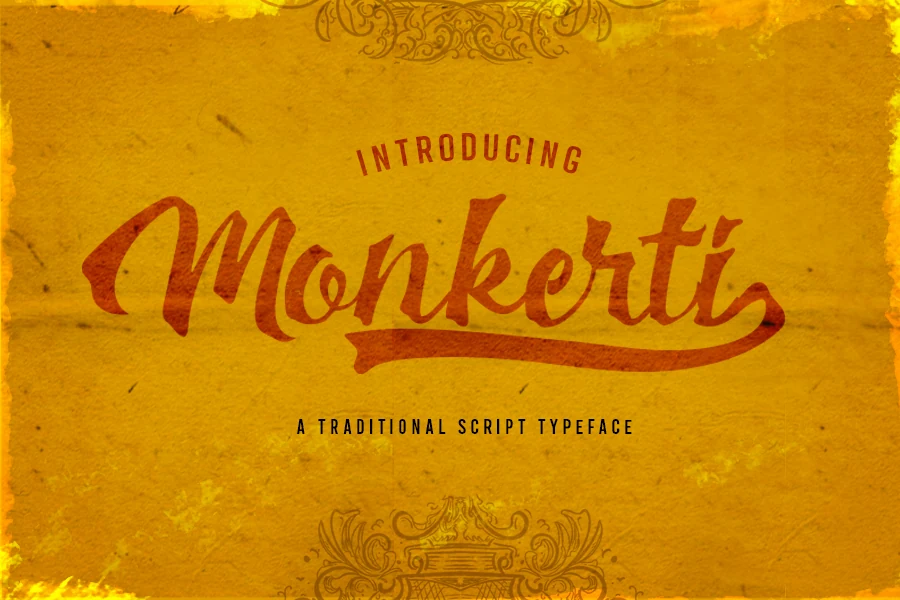
Monkerti Font is worth testing for logos, branding, and headlines. Look for strong contrast between thick and thin strokes and decorative swashes when comparing it with other options. Check the thinnest strokes at the final display size.
Bardens Font for logos
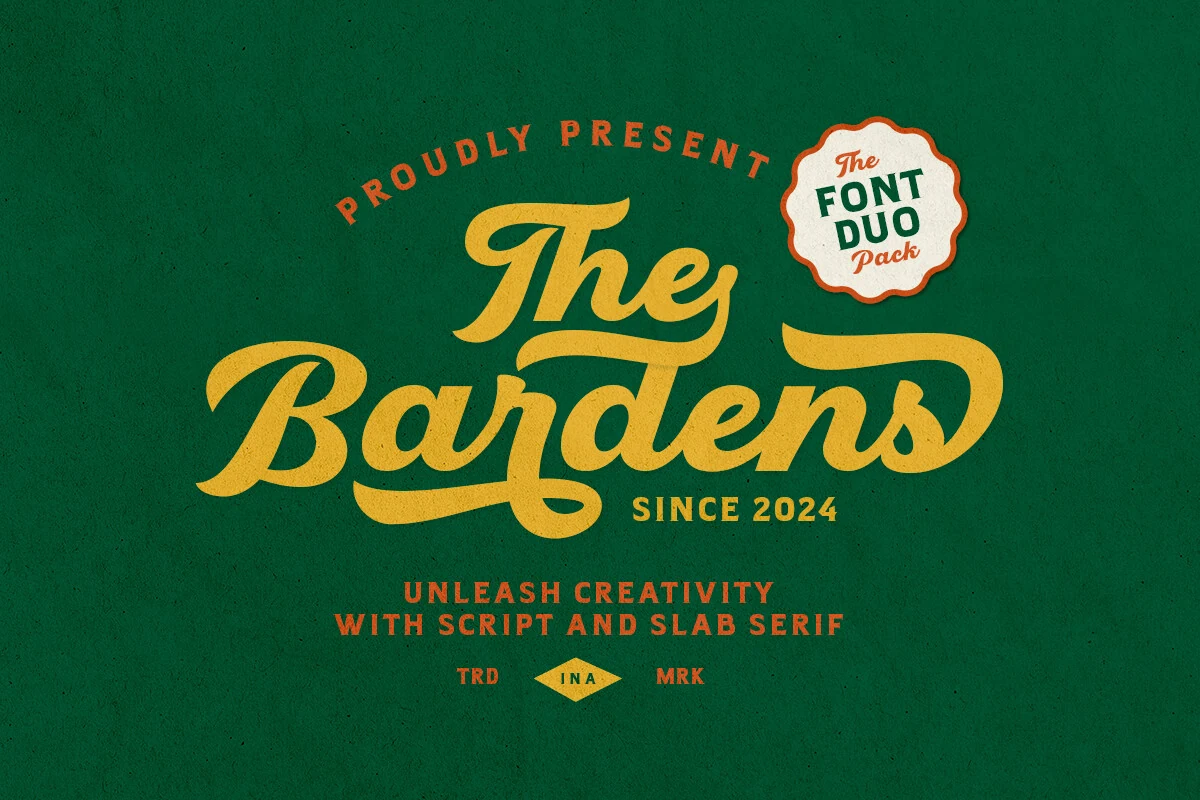
For logos, branding, and packaging, consider Bardens Font. Its design draws on brush-like movement and geometric construction. Check how the texture holds up against the background.
Balistic Font for logos
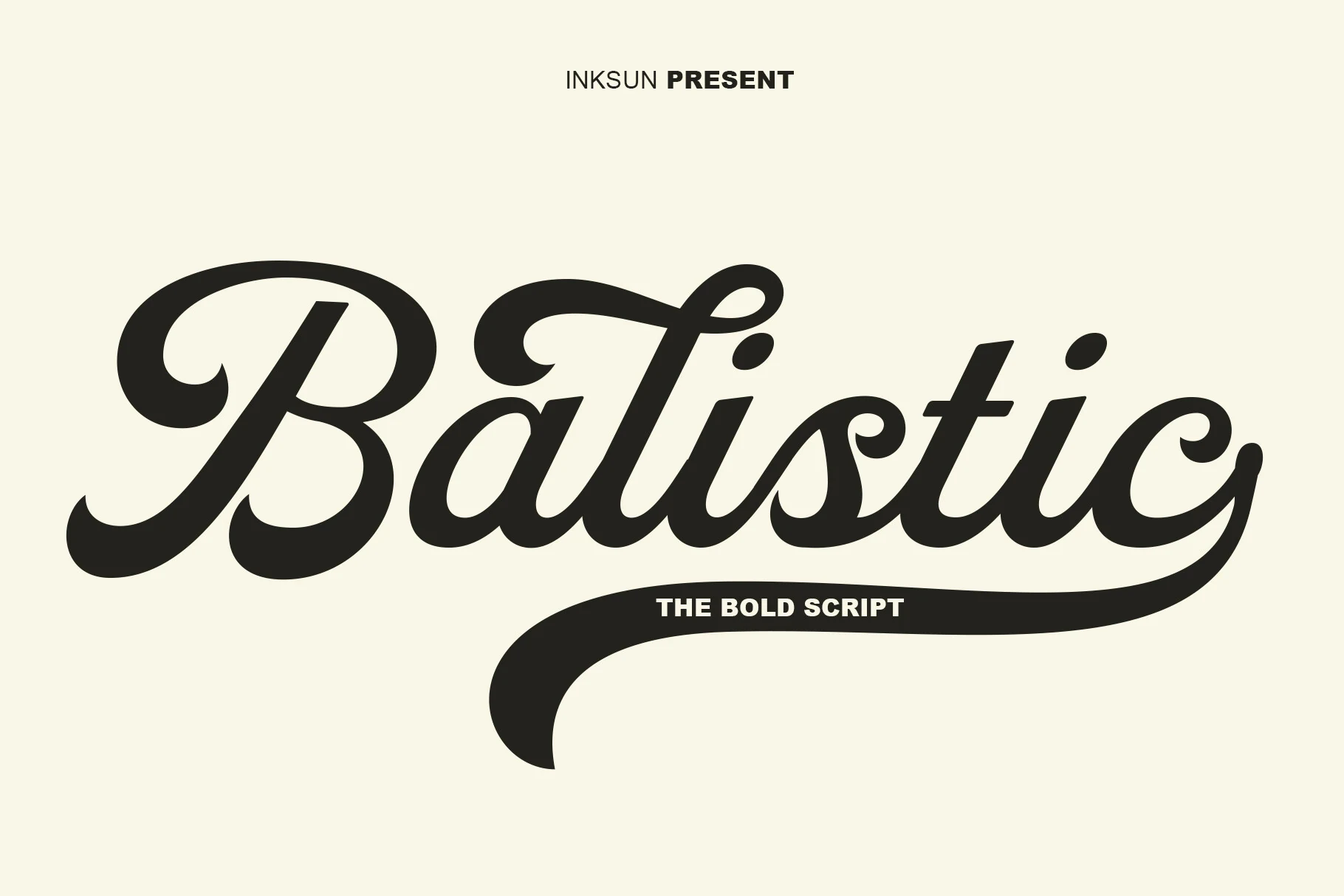
Balistic Font can anchor logos, branding, and posters. The main visual cues are flowing script forms and display-focused letterforms. Test letter joins and capitals in your actual wording.
Bentley Font for posters
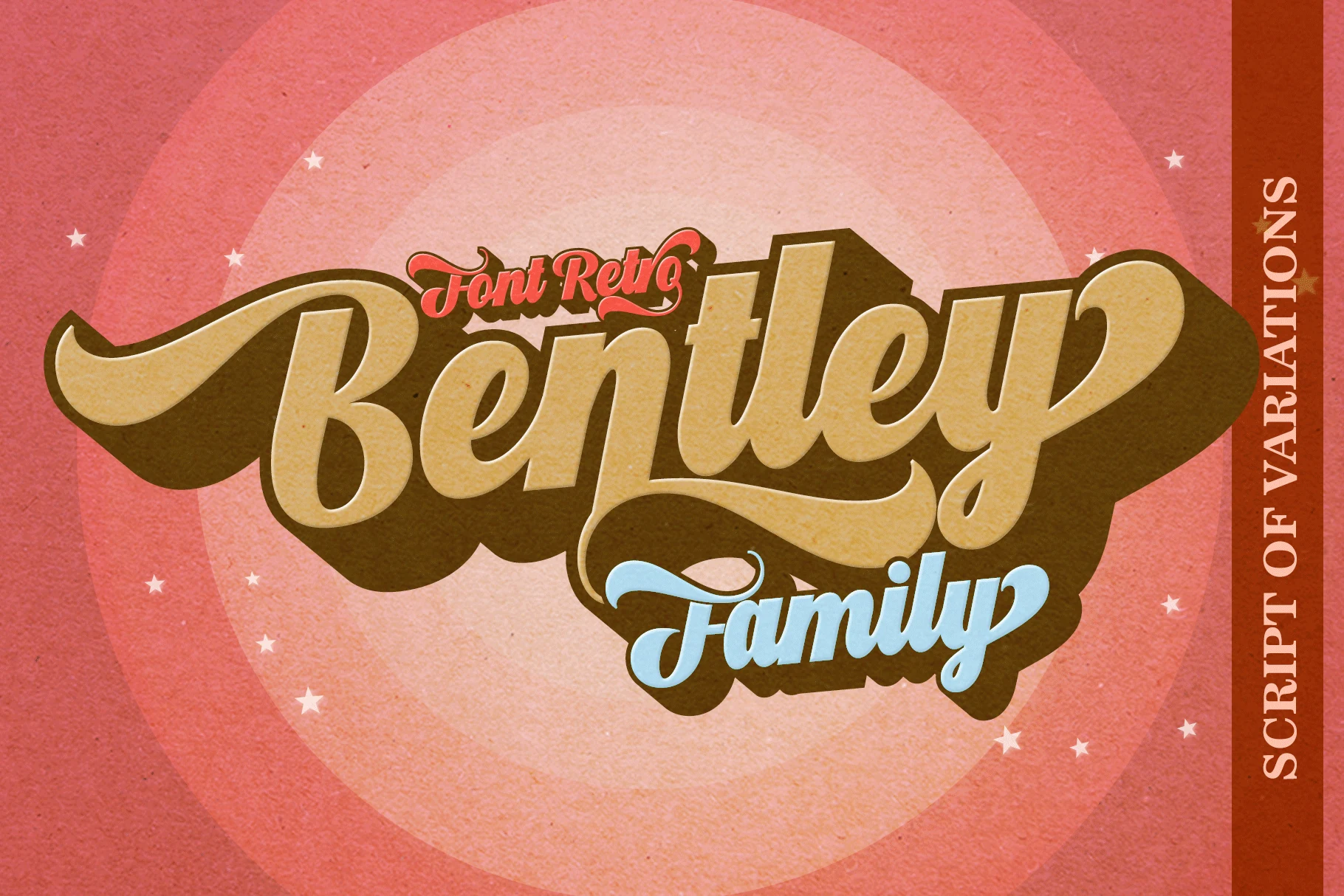
Bentley Font is worth testing for posters, display text, and headlines. Look for strong contrast between thick and thin strokes and display-focused letterforms when comparing it with other options. Check the thinnest strokes at the final display size.
Houston Font for logos
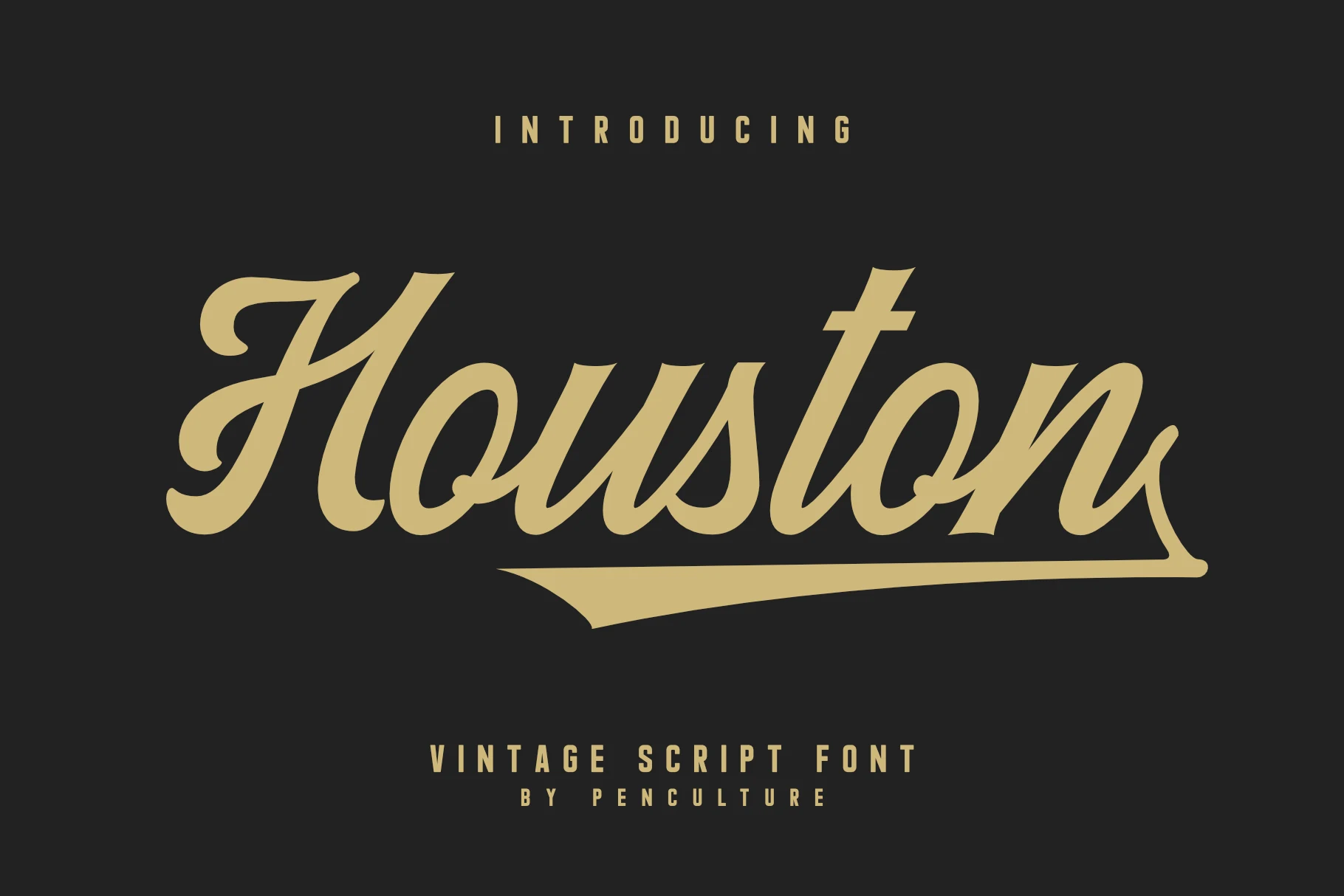
For logos, headlines, and display text, consider Houston Font. Its design draws on brush-like movement and decorative swashes. Check how the texture holds up against the background.
Fomtage Script Font for posters
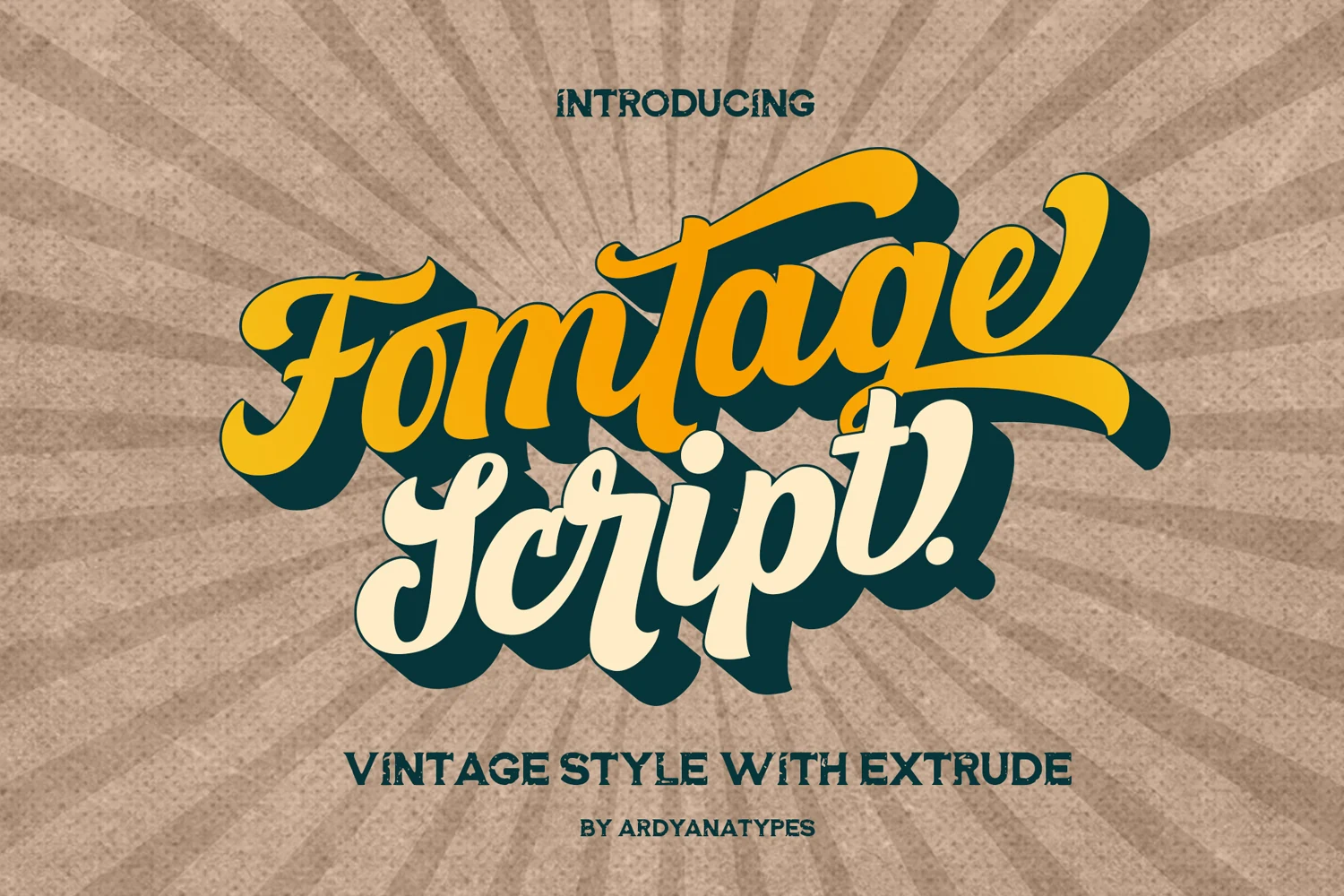
Fomtage Script Font can anchor posters, headlines, and signage. The main visual cues are strong contrast between thick and thin strokes and rounded letter shapes. Check the thinnest strokes at the final display size.
Donatello Font for posters
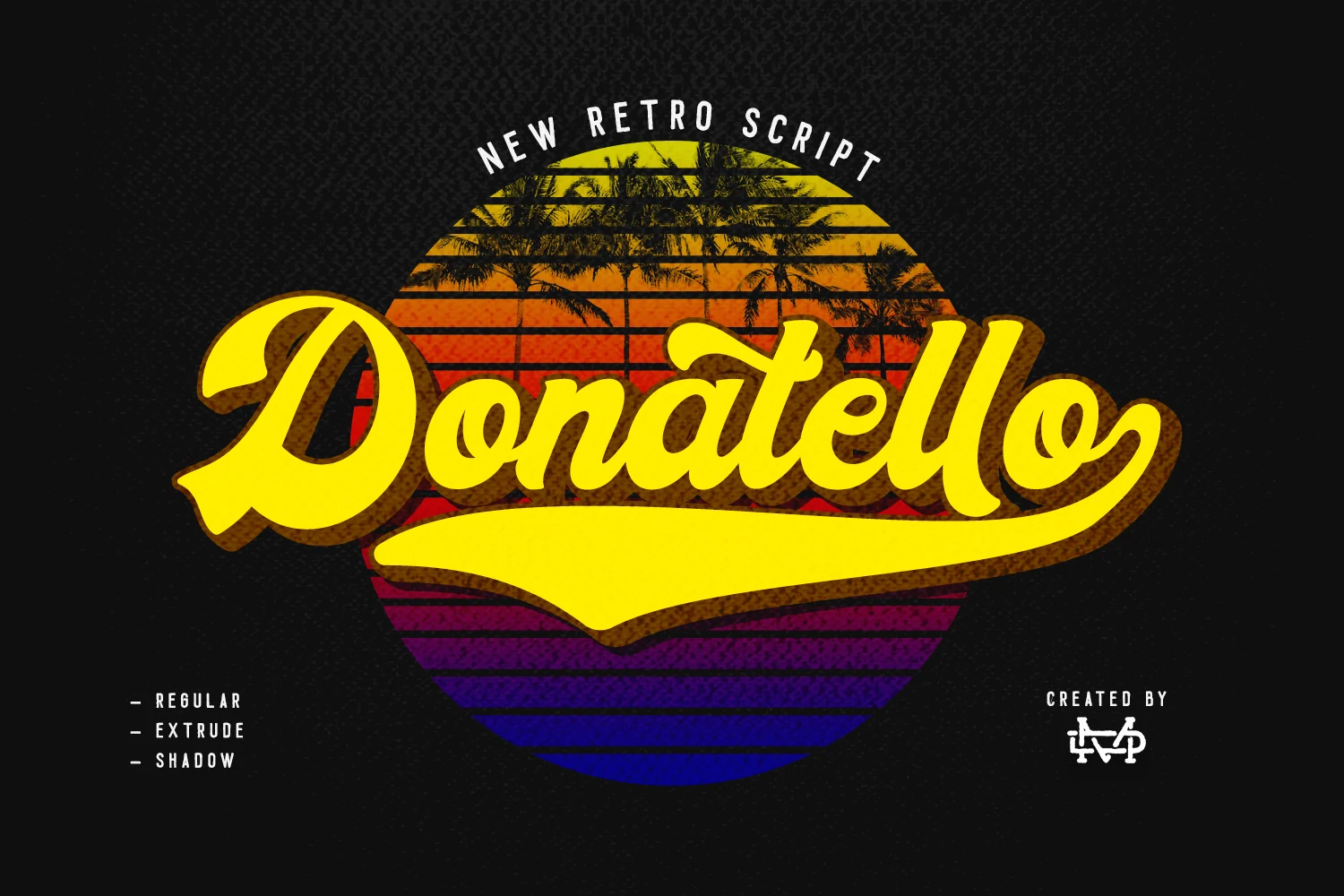
Donatello Font is worth testing for posters, headlines, and display text. Look for rounded letter shapes and decorative swashes when comparing it with other options. Try it at both headline and label size to judge its clarity.
Bayland Font for posters
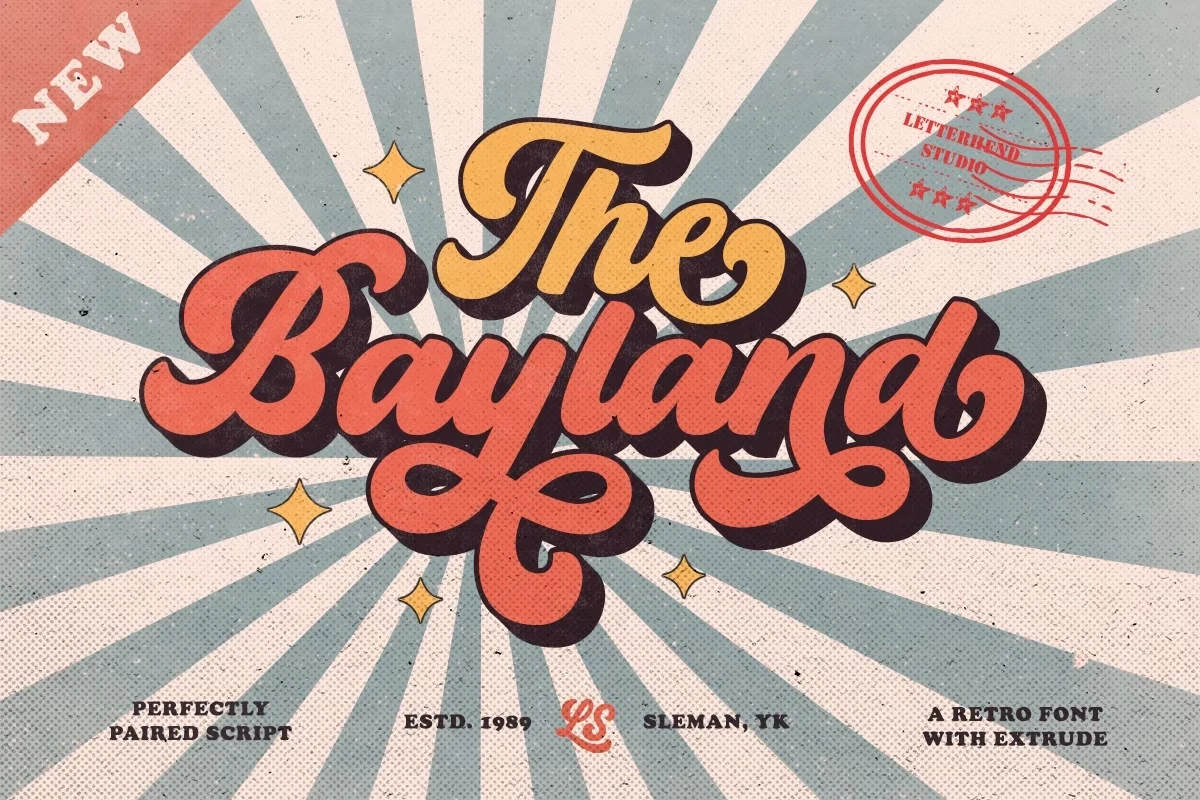
For posters, display text, and headlines, consider Bayland Font. Its design draws on rounded letter shapes and flowing script forms. Try it at both headline and label size to judge its clarity.
Wagner Font for logos
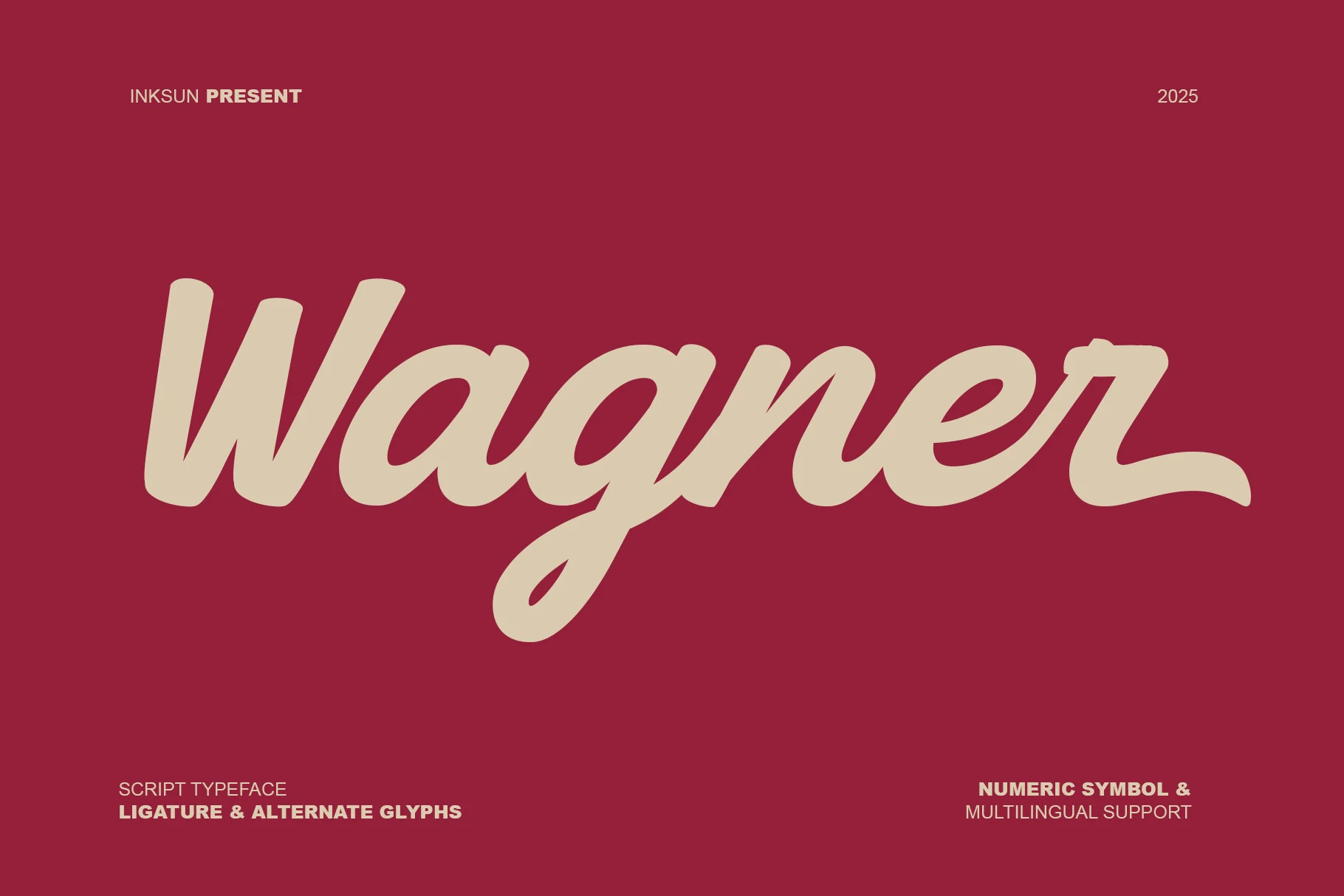
Wagner Font can anchor logos, branding, and display text. The main visual cues are rounded letter shapes and flowing script forms. Try it at both headline and label size to judge its clarity.
Boldy Skyline Font for branding
Boldy Skyline Font is worth testing for branding, logos, and wedding designs. Look for rounded letter shapes and flowing script forms when comparing it with other options. Try it at both headline and label size to judge its clarity.
Retro Sign Font for branding
For branding, headlines, and wedding designs, consider Retro Sign Font. Its design draws on an even, monoline stroke and rounded letter shapes. Test connected letters in the exact words you plan to use.
Groovy Vintage Font for display text
Groovy Vintage Font can anchor display text, posters, and retro designs. The main visual cues are rounded letter shapes and a retro mood. Try it at both headline and label size to judge its clarity.
Sweet Sixties Font for posters
Sweet Sixties Font is worth testing for posters, packaging, and branding. Look for rounded letter shapes and a vintage mood when comparing it with other options. Try it at both headline and label size to judge its clarity.
Stay Lucky Font for product labels
For product labels, children’s designs, and stickers, consider Stay Lucky Font. Its design draws on rounded letter shapes and a vintage mood. Try it at both headline and label size to judge its clarity.
City Mango Font for headlines
City Mango Font can anchor headlines, display text, and posters. The main visual cues are strong contrast between thick and thin strokes and decorative swashes. Check the thinnest strokes at the final display size.
Wildhorn Slab Font for signage
Wildhorn Slab Font is worth testing for signage, posters, and logos. Look for geometric construction and a vintage mood when comparing it with other options. Check whether repeated shapes make short words feel balanced.
Molcer Font for branding
For branding, editorial designs, and packaging, consider Molcer Font. Its design draws on strong contrast between thick and thin strokes and serif details. Check the thinnest strokes at the final display size.
Regnas Font for logos
Regnas Font can anchor logos, posters, and branding. The main visual cues are rounded letter shapes and display-focused letterforms. Try it at both headline and label size to judge its clarity.
Lush Letter Font for branding
Lush Letter Font is worth testing for branding, headlines, and posters. Look for rounded letter shapes and serif details when comparing it with other options. Try it at both headline and label size to judge its clarity.
Final checks before using a font